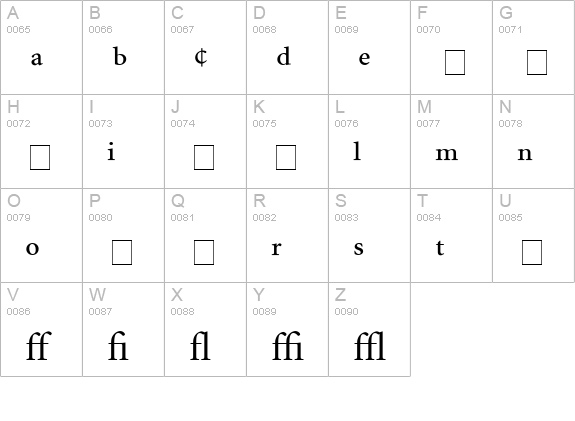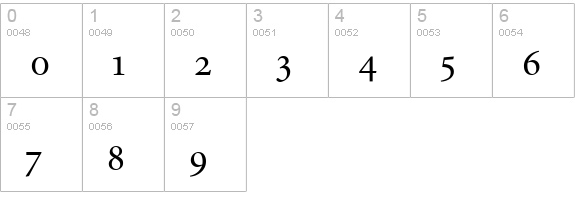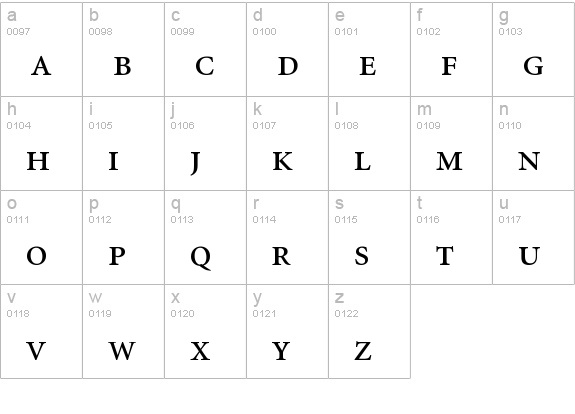
Atlantix Pro SSi is a modern and sleek font that exudes sophistication and elegance. Its clean lines and sharp angles make it perfect for a wide range of design projects, from branding to advertising to web design. This font is ideal for creating eye-catching headlines, stylish logos, and professional-looking layouts. With its bold and striking appearance, Atlantix Pro SSi commands attention and leaves a lasting impression. The best part? Atlantix Pro SSi is available for free download at FontsMarket.com. This means you can access this premium font without breaking the bank, making it a valuable addition to your font collection. Don't miss out on the opportunity to elevate your designs with the timeless appeal of Atlantix Pro SSi. Download it today and unleash your creativity like never before.